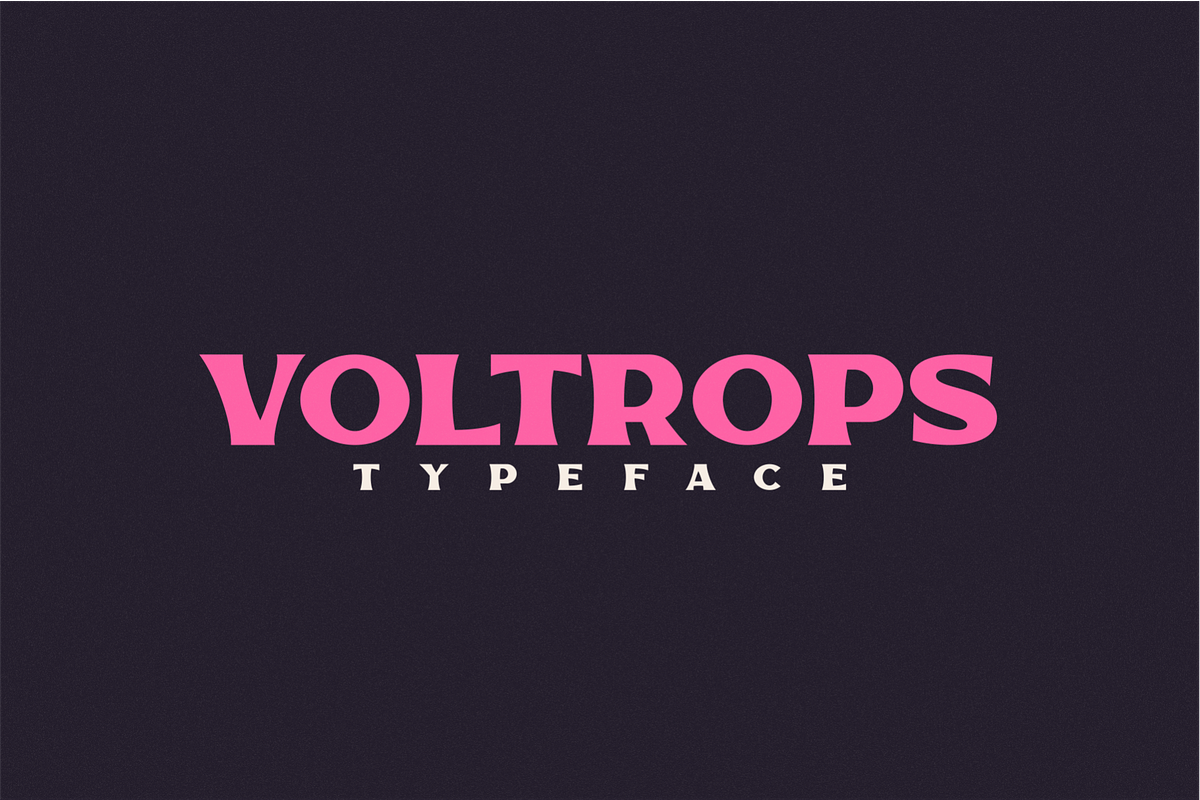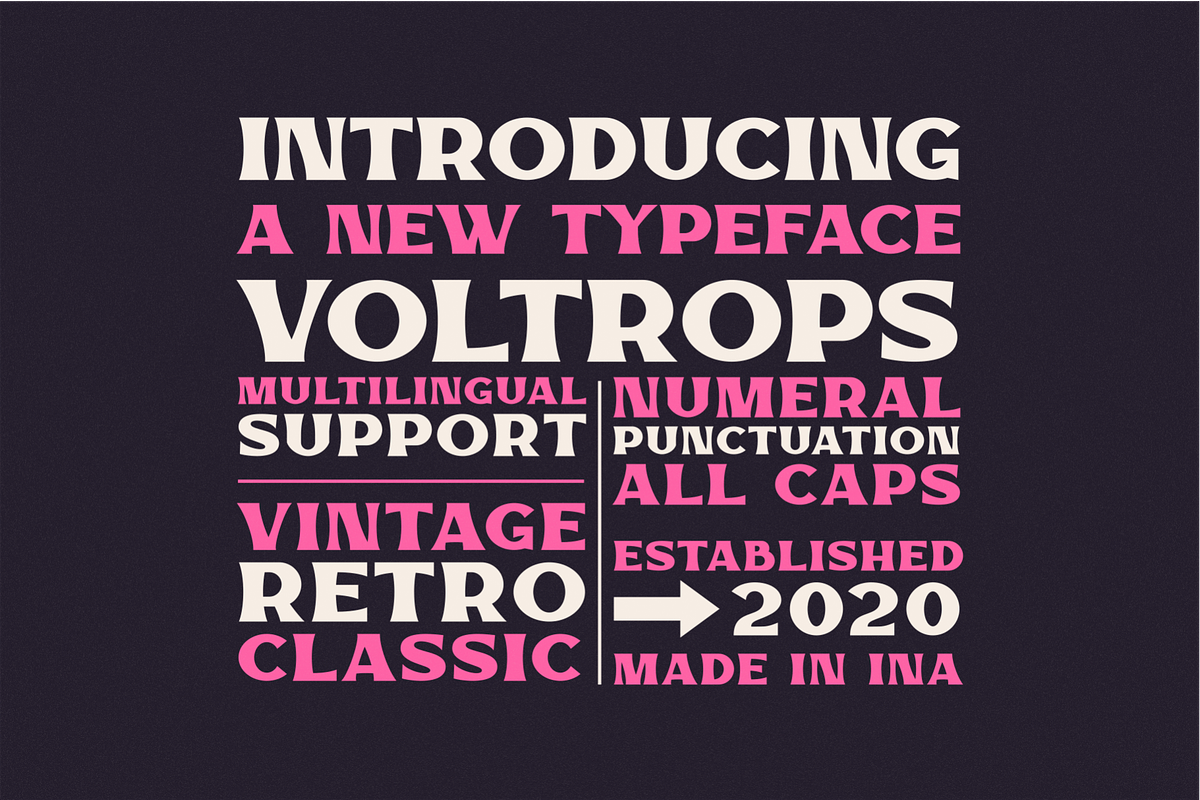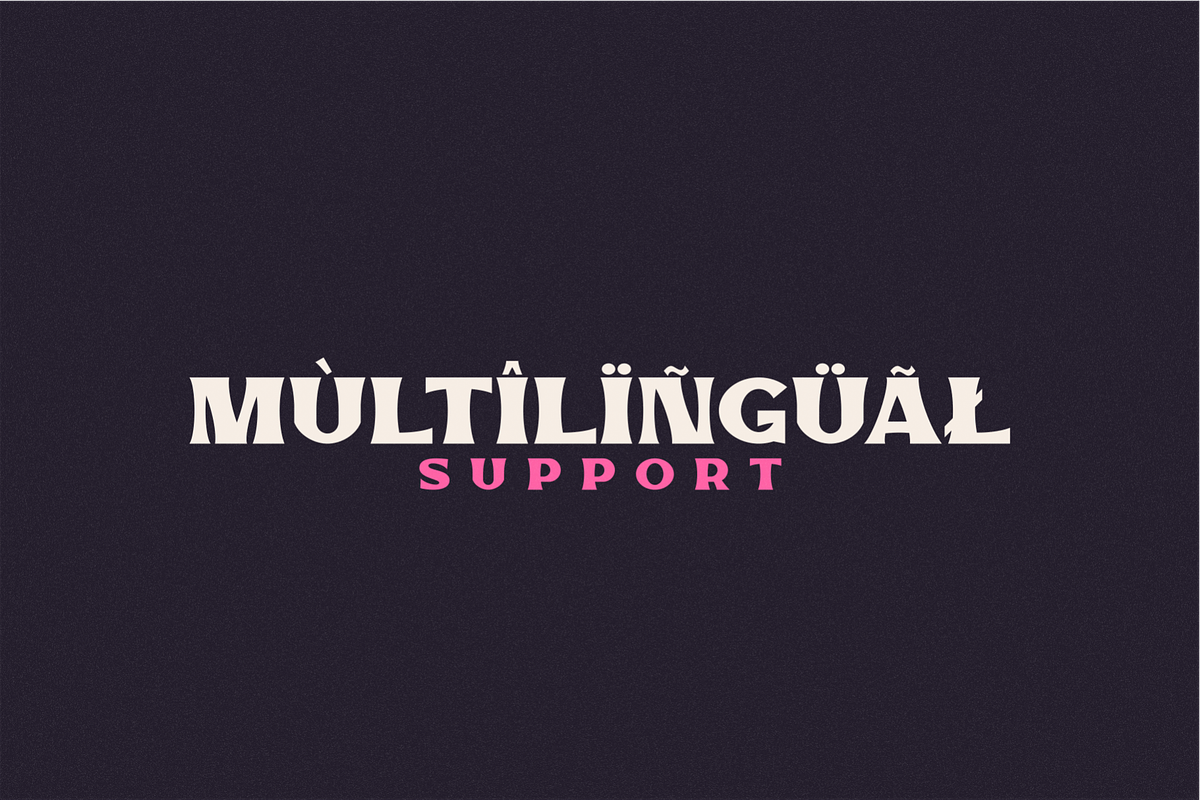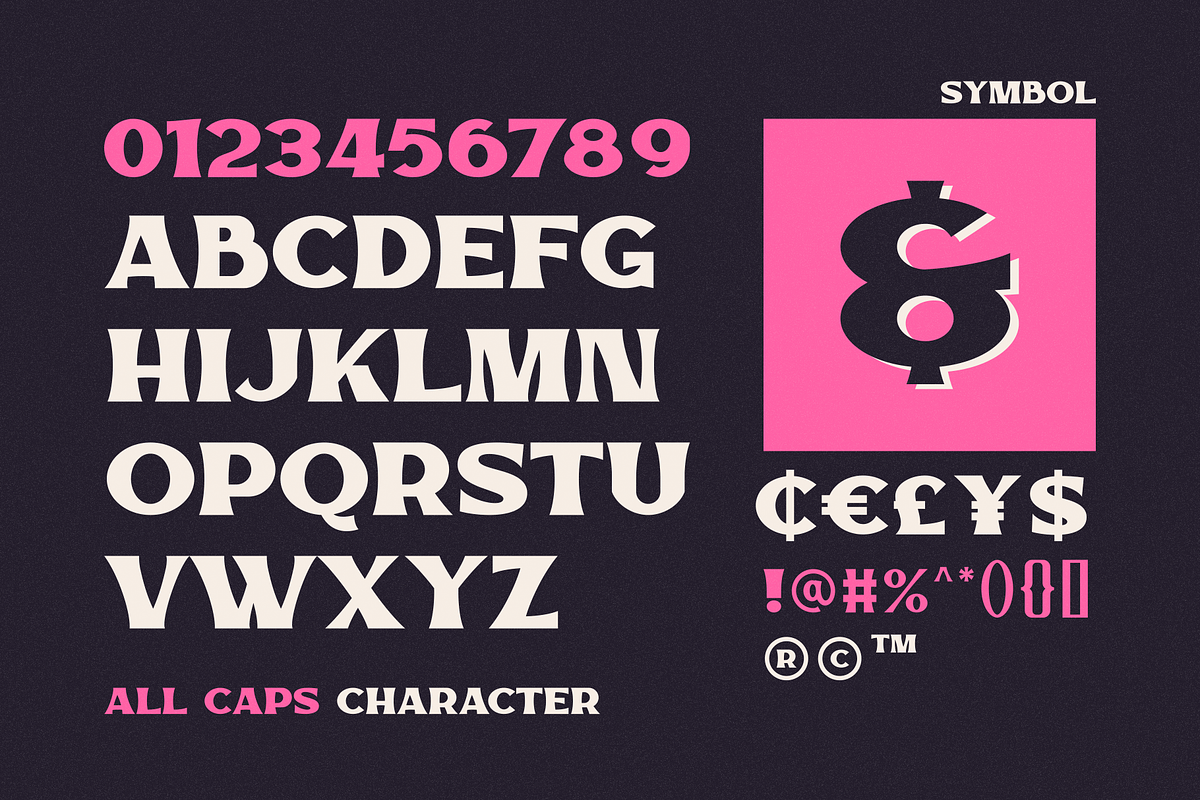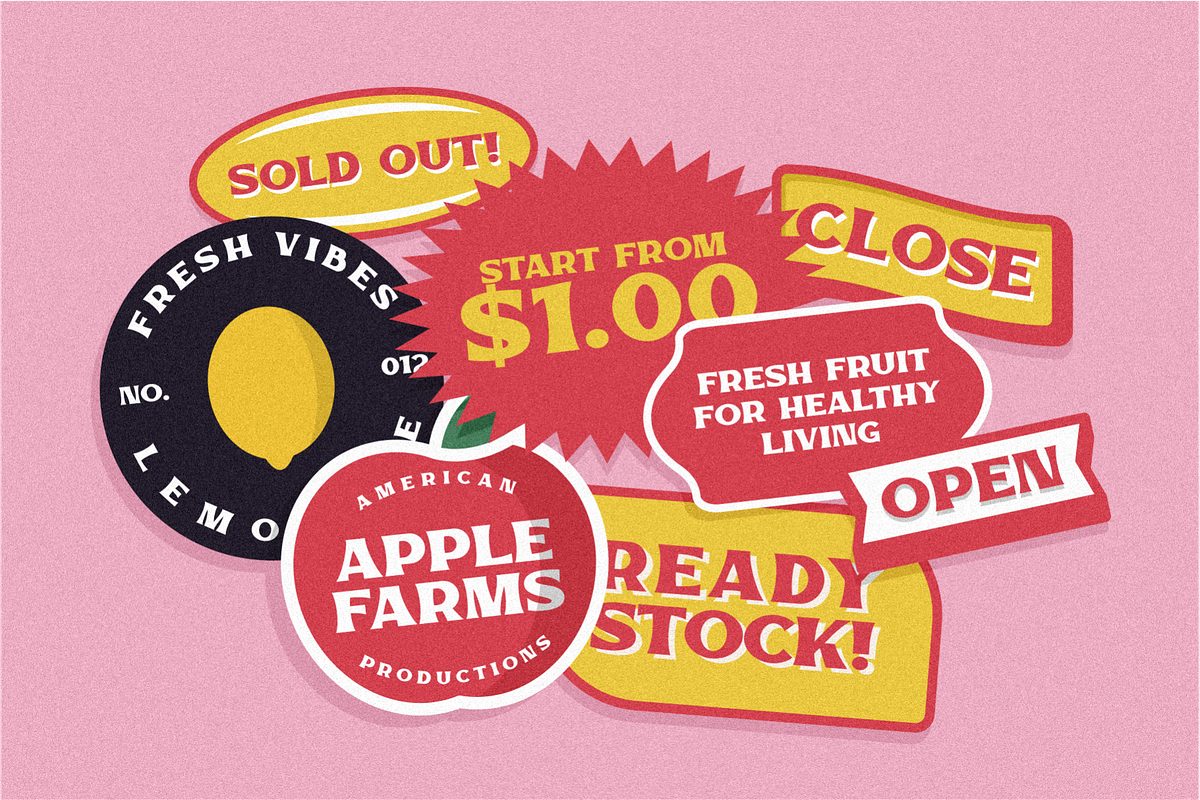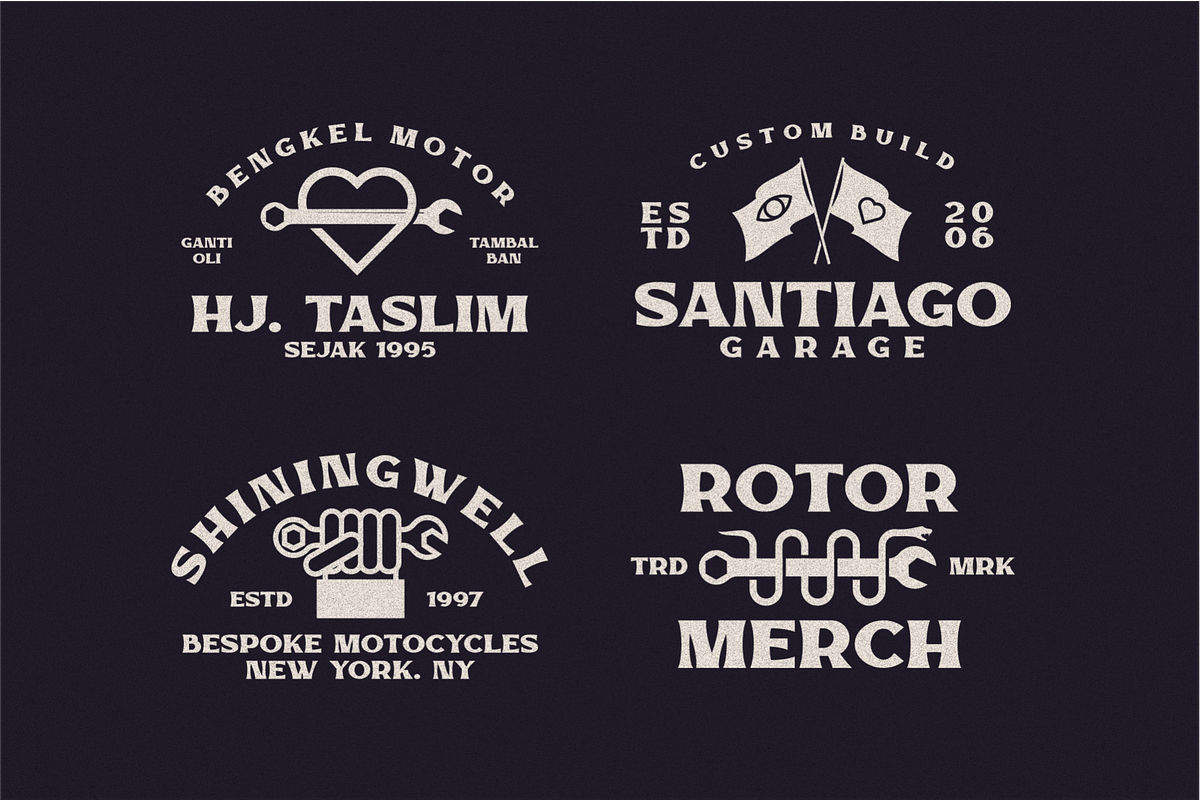
Voltrops
Voltrops is a masculine font with a slightly vintage feel, suitable for logos, design labels, headlines, posters, and others.
- All Uppercase